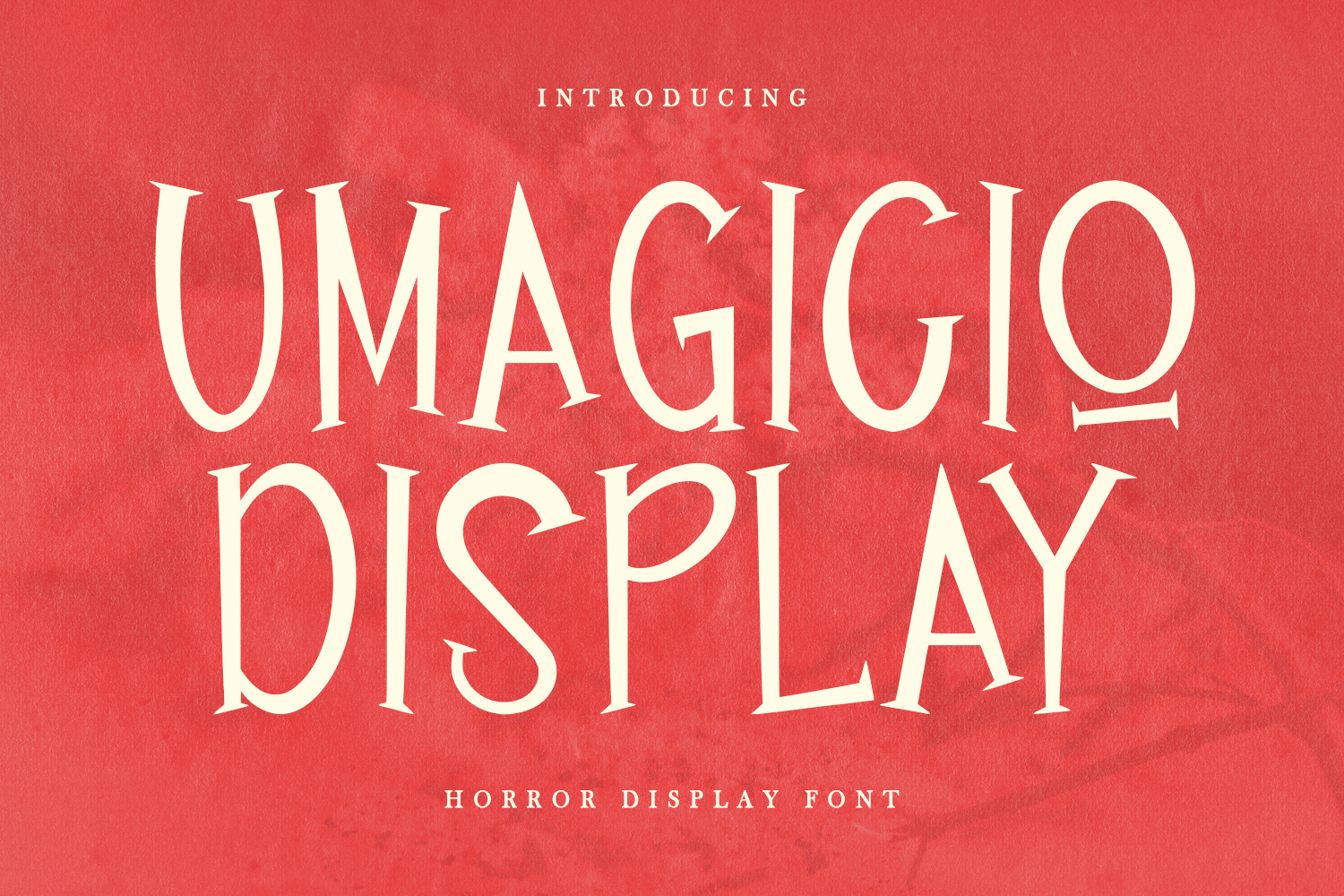
Umagicio Display Font
Umagicio halloween display font. Heavy stroke, fun character with a bit of alternate. To give you an extra creative work. Umagicio halloween display font support multilingual language. This font is good for logo design, Social media, Movie Titles, Books Titles, a short text even a long text letter and good for your secondary text font with script or serif. Make a stunning work with Umagicio halloween display font.